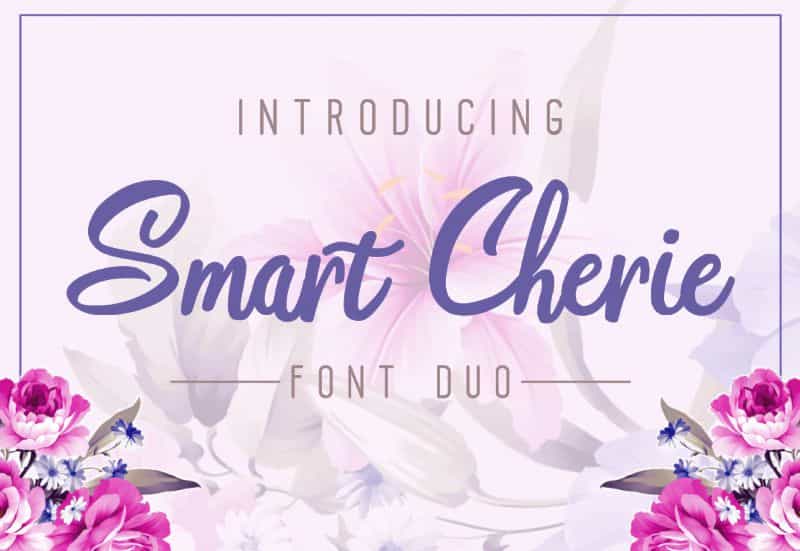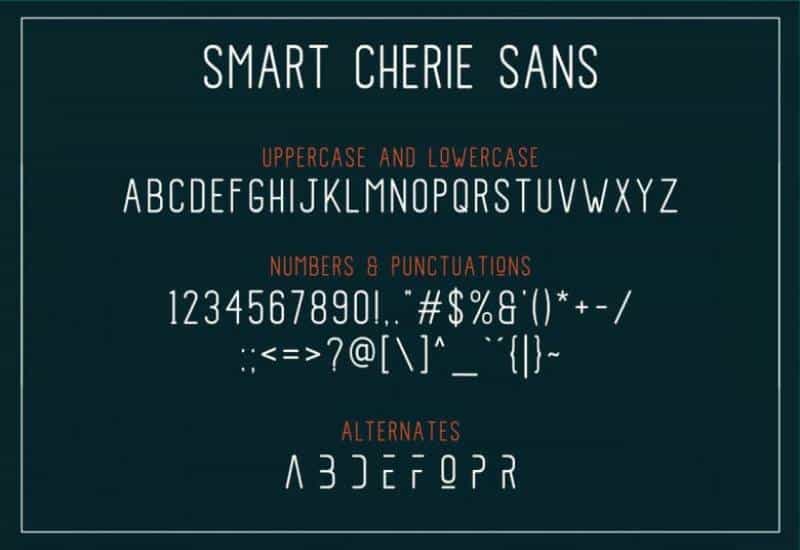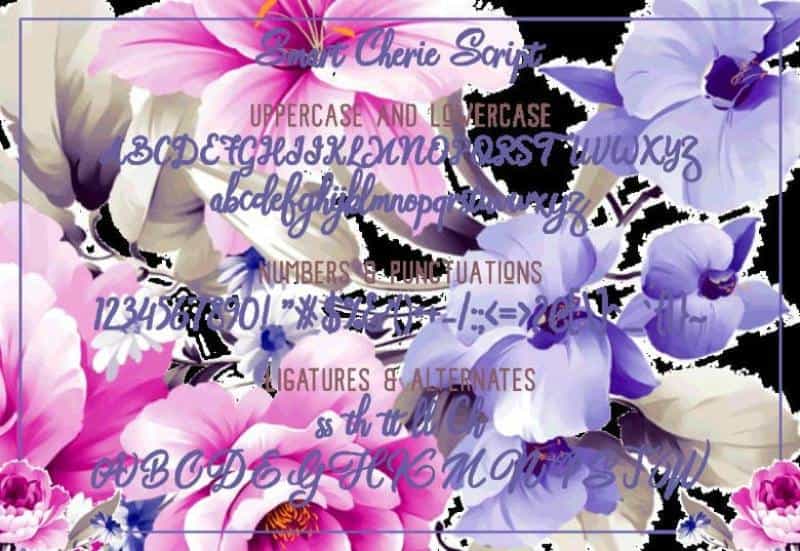
Discover Smart Cherie Font Duo, part of the Sans Serif Calligraphy collection—a versatile and unique font perfect for adding a personal touch to your projects. Download it for free and enjoy crafting designs with style, from invitations to social media posts. This font is available exclusively for personal use, giving you the freedom to create without limits. Unlock your creativity with Smart Cherie Font Duo today!
Indulge in the Smart Cherie Duo fonts. A combination perfect for branding, photography, invitations, advertisements, stationery and more.